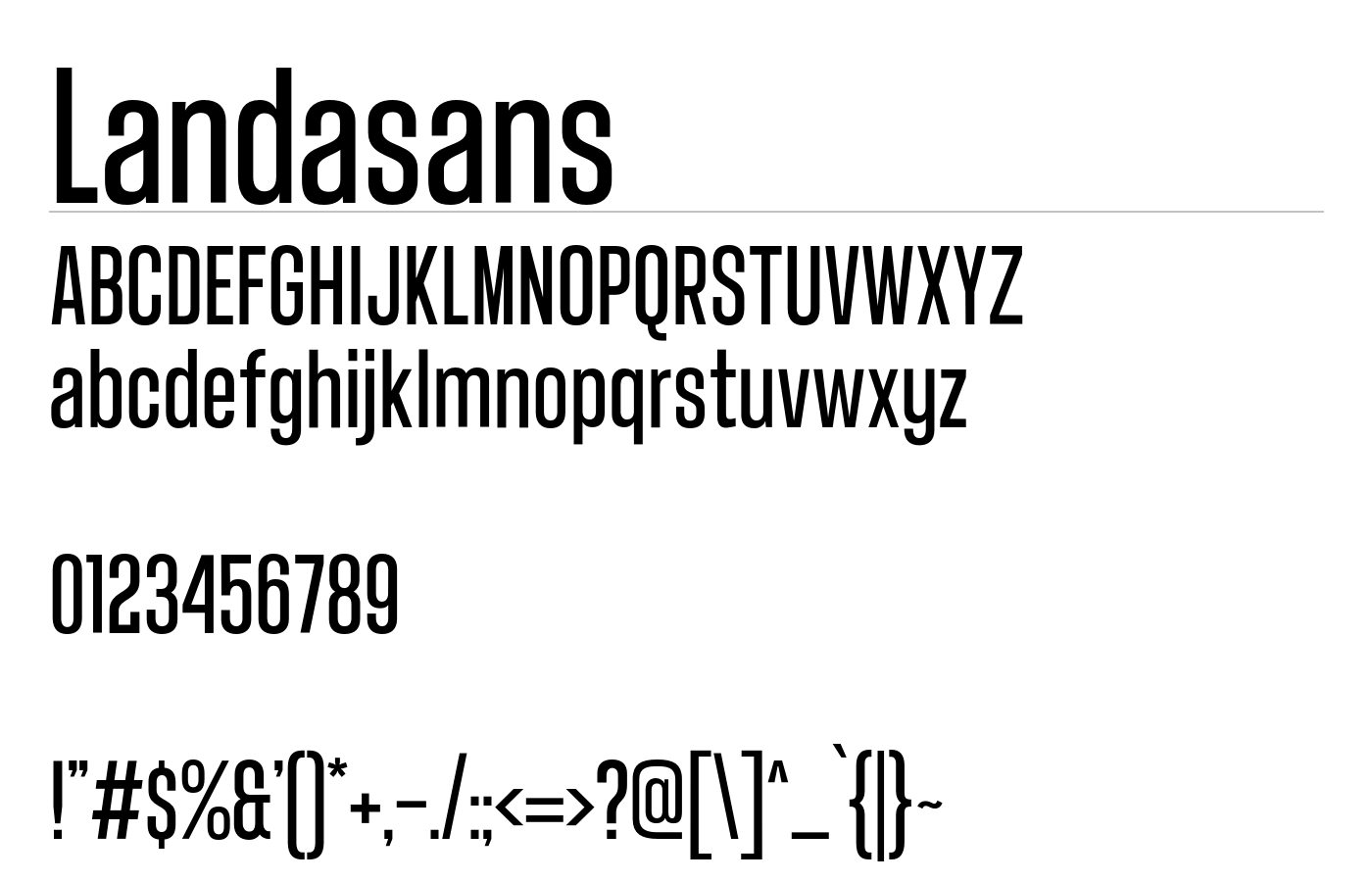
Landasans is a tall, narrow sans serif font that features a clean and modern look with consistent stroke weight and minimal contrast. Its condensed width and high x-height give it a strong presence, making it ideal for headlines, branding, and editorial use where space is limited but impact is key. With its straightforward and professional style, Landasans works well in contemporary designs that require clarity and a sleek, urban feel.
Landasans Font
About Landasans Font
| Font family | Landasans Font |
| Designer | Andriansyah MK |